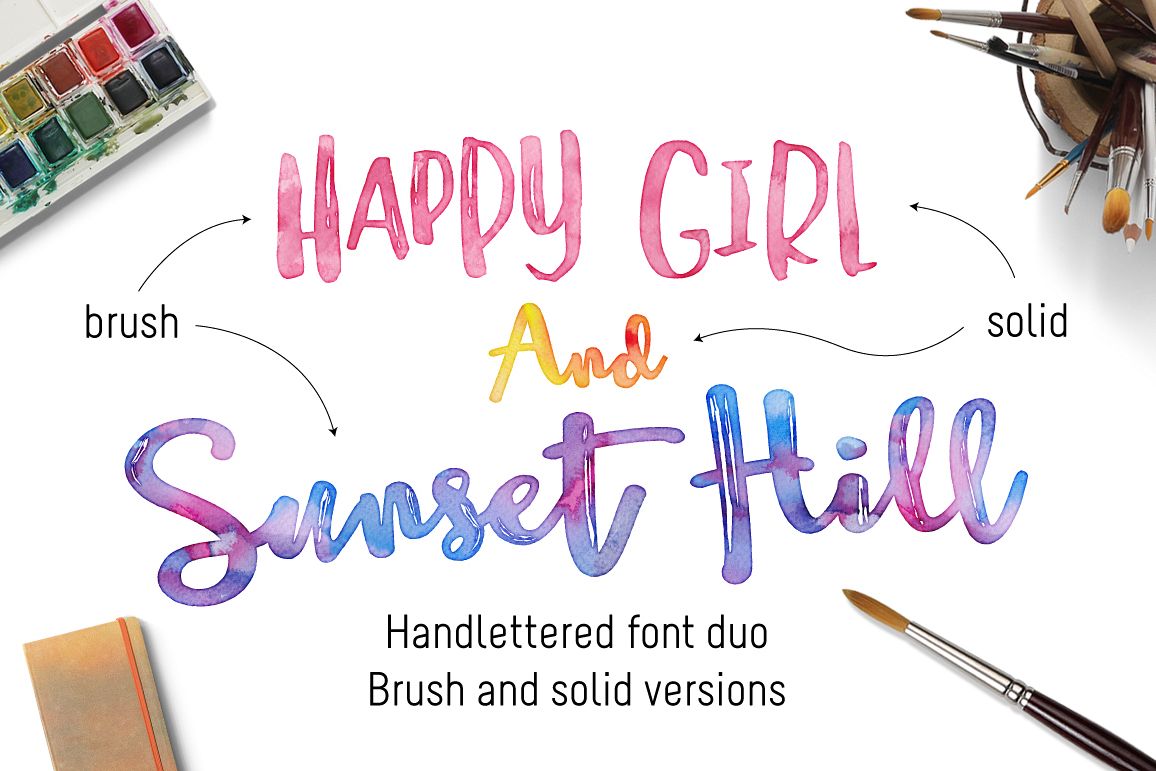
Happy Girl & Sunset Hill Font Duo
I'm proud to showcase a pair of fonts which I have digitized from my own hand lettering. These fonts compliment each other and can be used to create your own handlettering effect for quotes, t-shirts, logos - you name it, you can design it with this pair :-)
Sunset Hill is a script font originally made with a brush pen. There are two versions of this font included - Sunset Hill (brush) and Sunset Hill Solid. There are a few alternates and ligatures in this font too!
Happy Girl is an all caps font (upper and lowercase) - you'll see in the previews I have made that the lowercase caps can make all the difference to a design! There are also two versions of this font included (brush and solid).